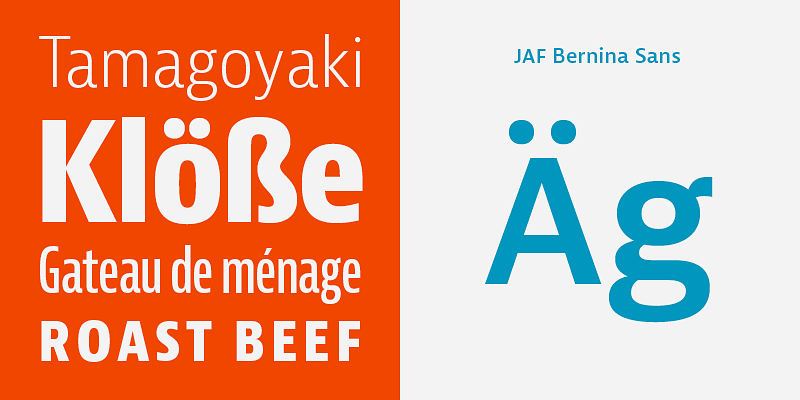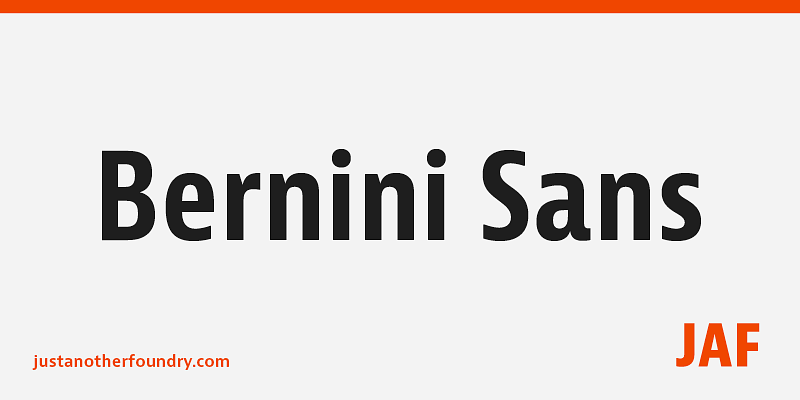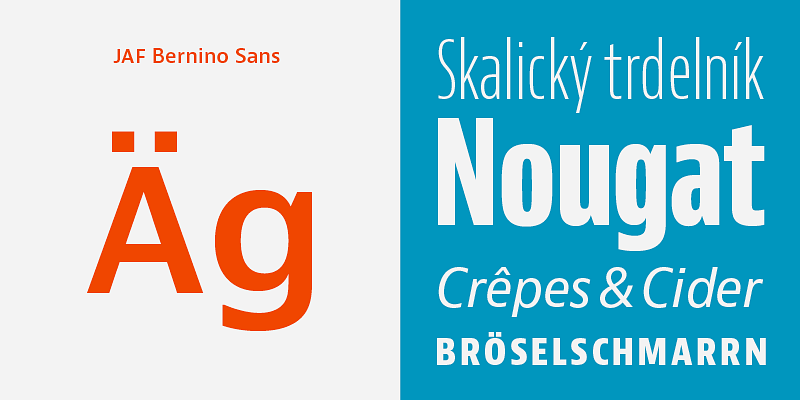
JAF Bernini Sans is a type system with two sub-famil­ies: JAF Bernino Sans and JAF Bernina Sans. JAF Bernino Sans’s finely balanced weight distri­bu­tion and open shapes make it a great text face, while the wide variety of weights and widths provide the designer with a power­ful toolbox for head­ings and display typo­graphy. JAF Bernina Sans is a more informal version with altern­ate letter­forms, such as round dots and a double-storey g.